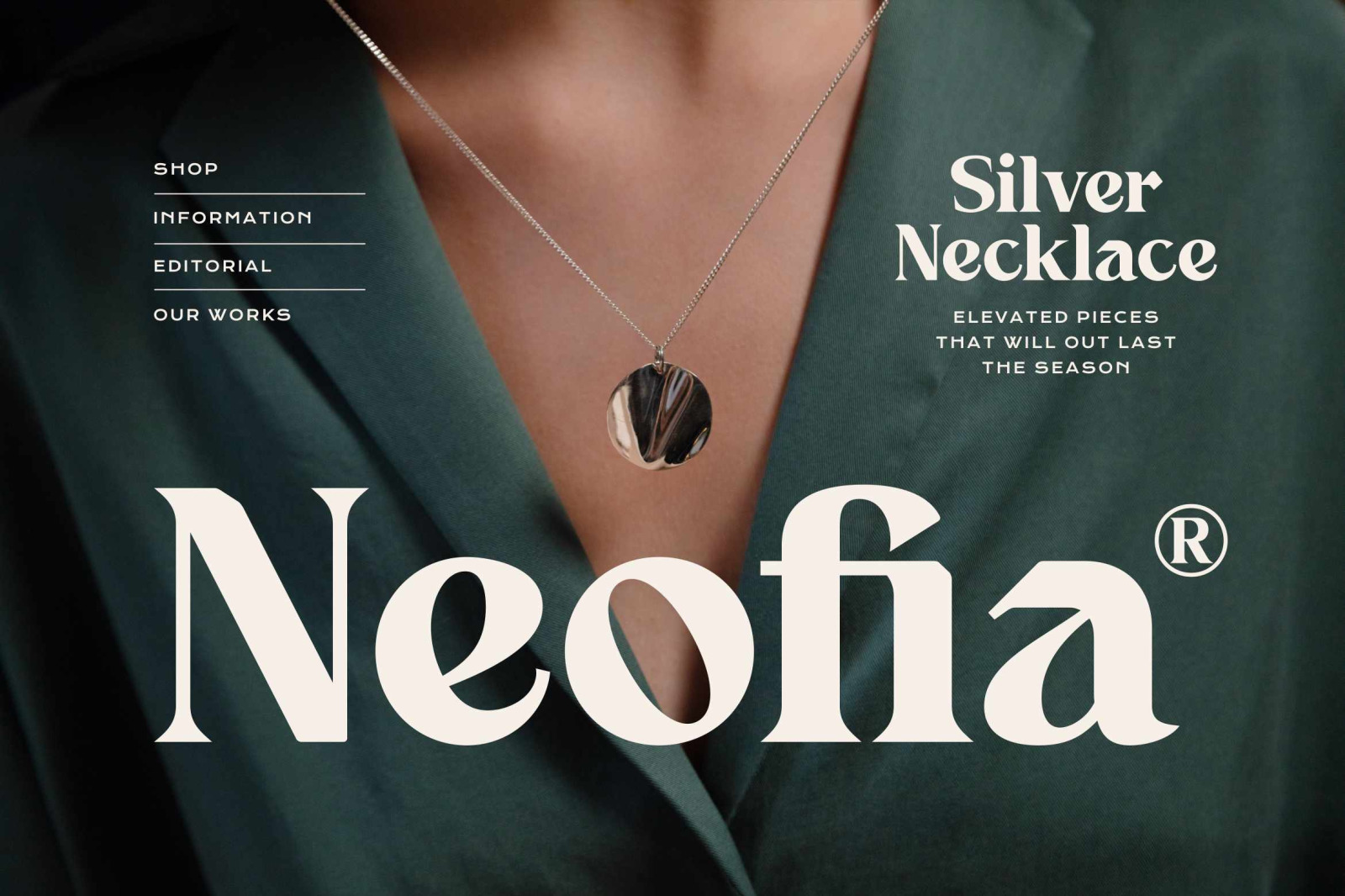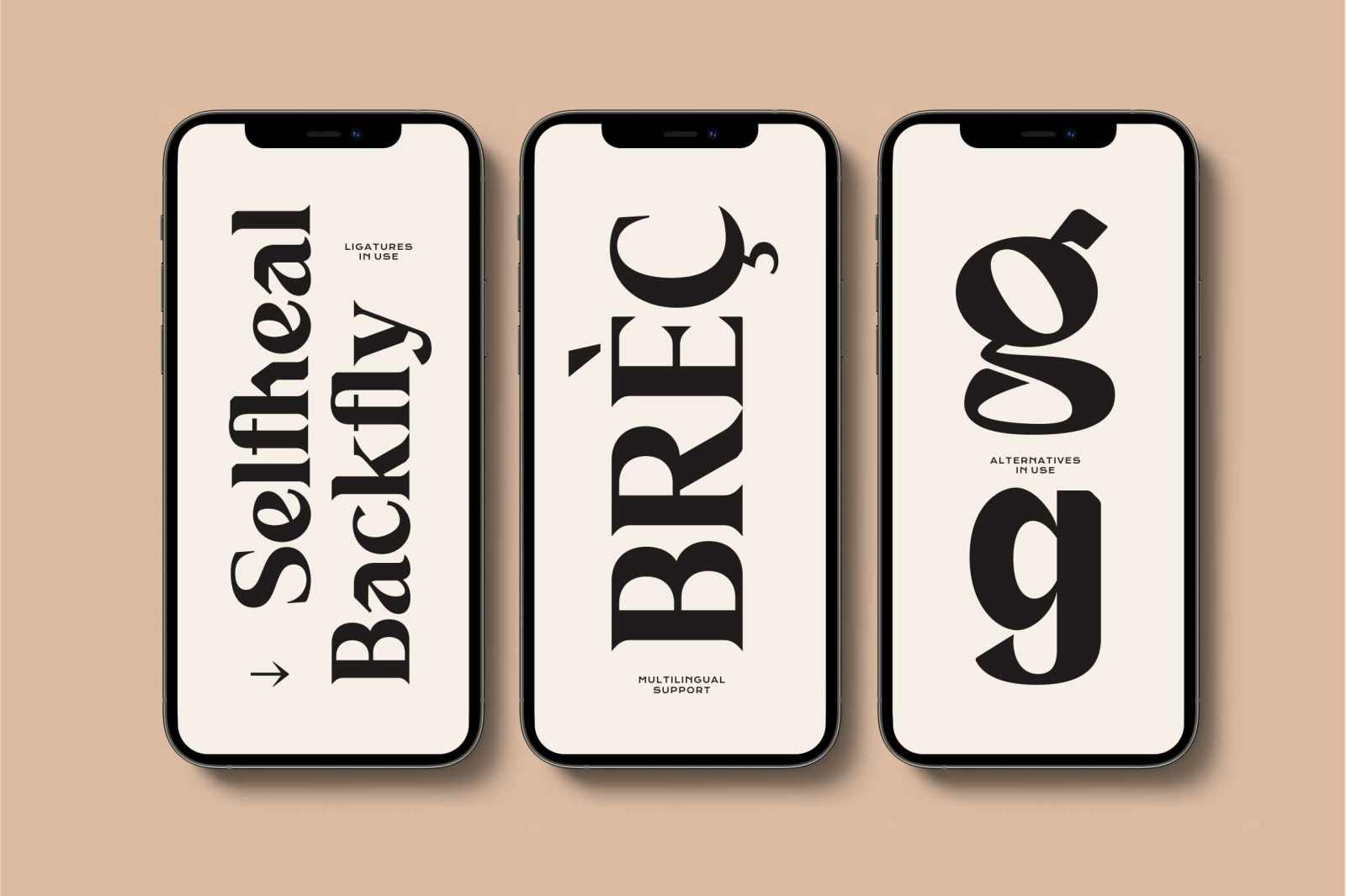
Maginte - Aesthetic & Modern font
Magnite is a aesthetic, modern, experimental, display font inspired by contemporary typography. Complemented by some of the same alternatives and ligatures made with love. The Magnite is a great choice for headlines, titles, logo, posters and branding.
Font Features
-Uppercase
-Lowercase
-Alternatives
-Ligatures
-Numerals & Punctuation
-Multilingual Support